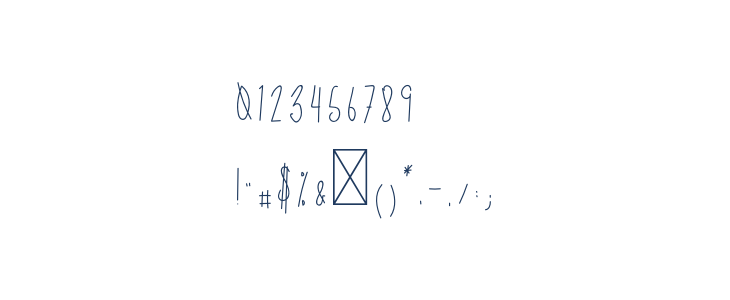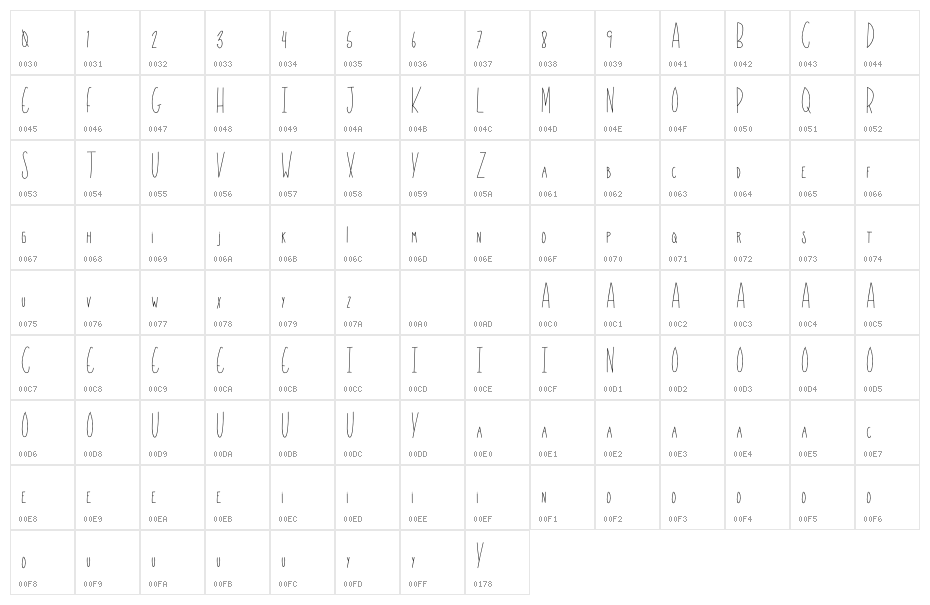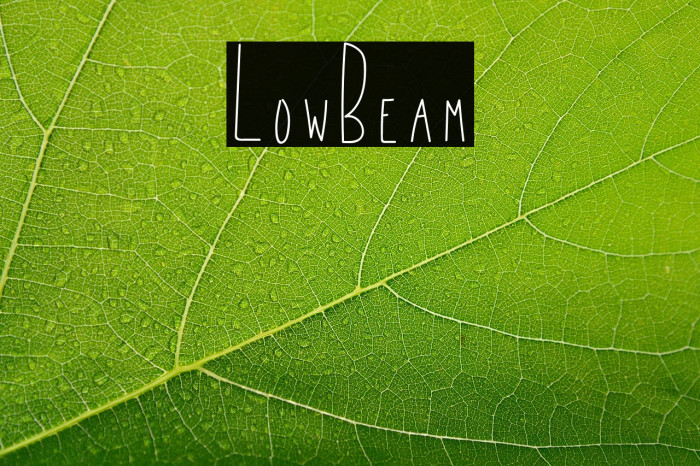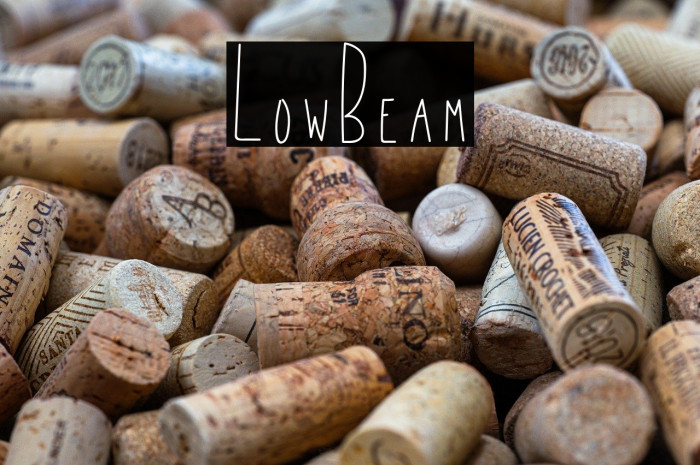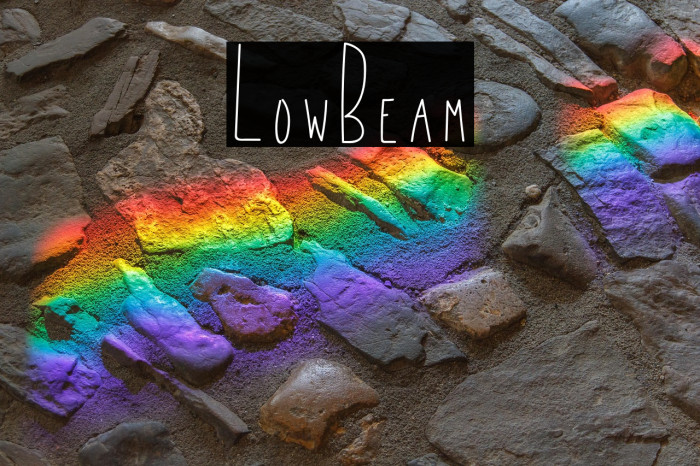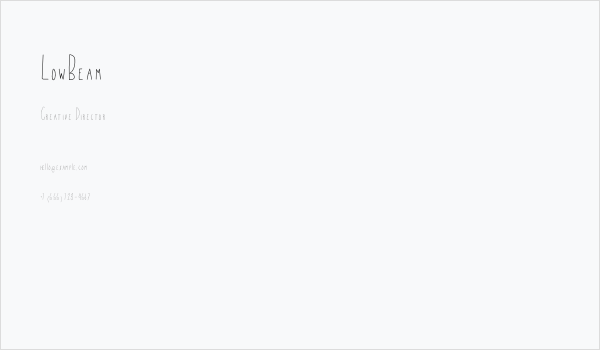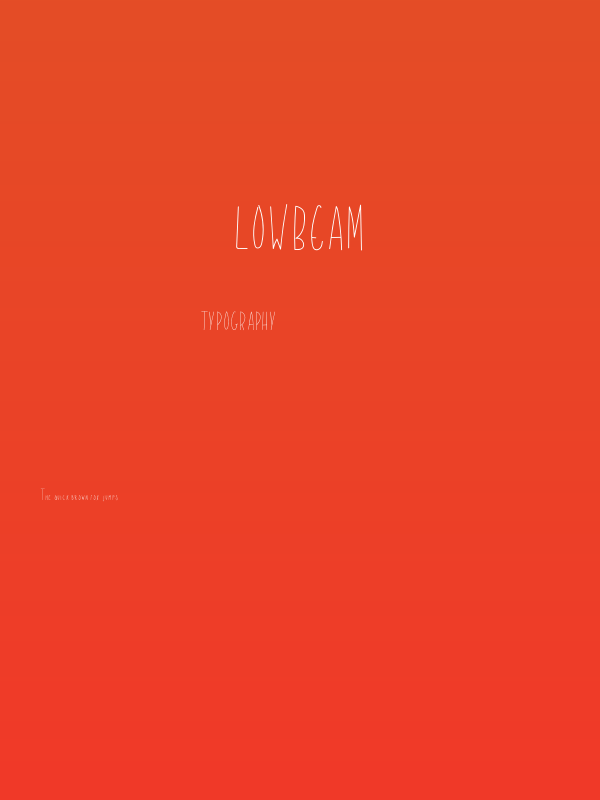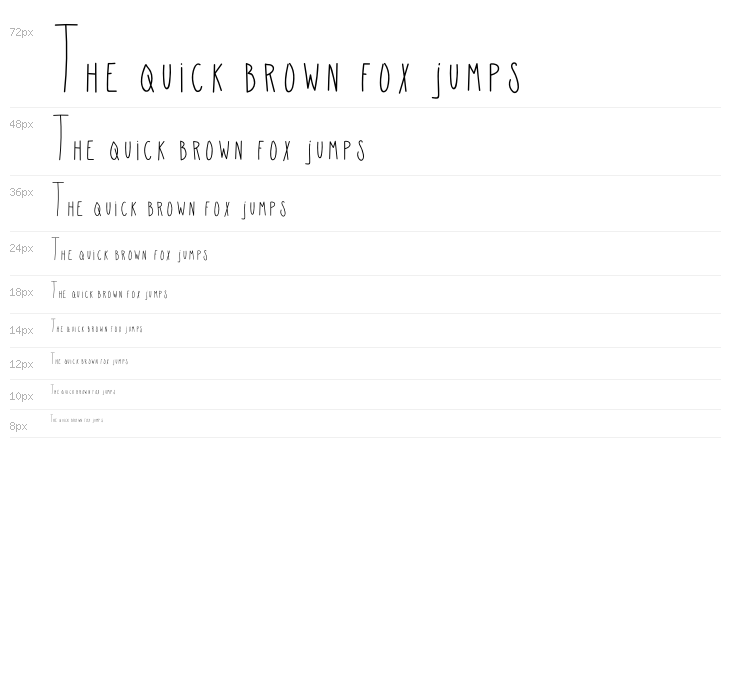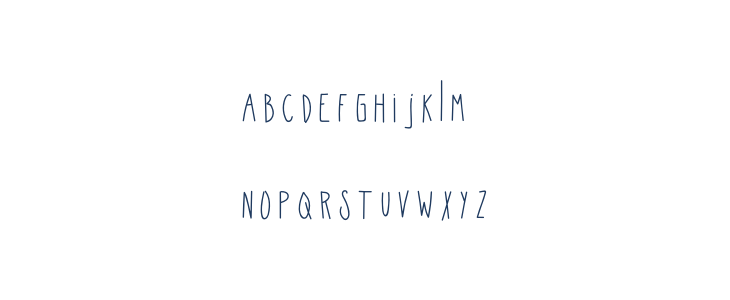
LowBeam Font
LowBeam Description
This font features a playful and whimsical handwritten style, characterized by its tall and narrow letterforms. The strokes are thin and slightly irregular, giving it a casual and informal appearance. The uppercase and lowercase letters maintain a consistent height, while the numerals and special characters complement the overall aesthetic with their quirky design. The font's unique personality makes it suitable for creative projects that require a touch of individuality and charm.
Overall StyleWhimsical
Use CaseLogos, Headlines, Informal Text
Proposed ProjectsIdeal for greeting cards, children's books, playful branding, and creative social media graphics.